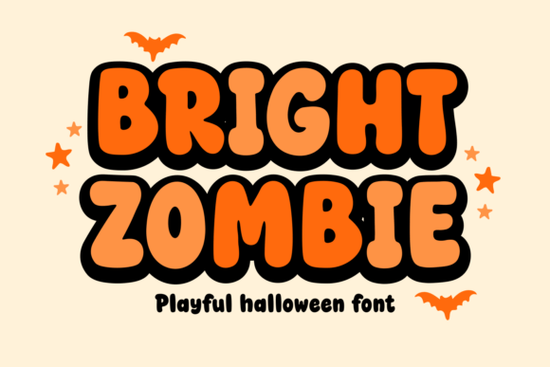
If you're working on Halloween-themed designs that lean more “fun” than “fright,” the Bright Zombie Font by Dreamink 7ntypes Font might be exactly what your project needs. This playful display font blends cheerful energy with just a hint of spooky charm think bouncy letterforms, rounded edges, and a cartoonish vibe that’s perfect for kids’ parties, seasonal crafts, or lighthearted promotional materials. It’s not trying to scare anyone; instead, it invites smiles while still celebrating the season.
Unlike darker, more gothic Halloween fonts, Bright Zombie keeps things upbeat. Its bold strokes and exaggerated curves make it highly legible even at smaller sizes, which is great if you’re designing trick-or-treat bags, printable party favors, or social media graphics. The font works especially well when you want your Halloween content to feel inclusive and family-friendly ideal for schools, community events, or small businesses running seasonal promotions.
What kinds of projects work best with Bright Zombie?
This font shines in contexts where whimsy matters more than horror. Here are a few natural fits:
- Kids’ Halloween books or activity sheets – The friendly shapes won’t intimidate young readers.
- Print-on-demand apparel – Think tees with phrases like “Boo-tiful” or “Zombie Squad” in cheerful colors.
- Party invitations and decorations – Pair it with pumpkins, ghosts, and candy corn for cohesive, joyful visuals.
- Social media posts for seasonal sales – Use it in Instagram stories or Facebook banners to announce limited-time offers with personality.
- Stickers and labels – Great for treat bags, classroom rewards, or DIY craft kits.
Because of its display nature, Bright Zombie isn’t meant for body text but that’s true of most themed fonts. Save it for headlines, logos, or short phrases where visual impact matters most.
How does it compare to other playful display fonts?
If you’ve used fonts like Merry Christmas Duo for holiday cheer or Super Touchdown for sports-themed energy, you’ll recognize the same spirit here: expressive, character-driven lettering designed to convey mood instantly. Bright Zombie sits comfortably alongside fonts like Chalky Teacher, which also leans into approachability and handcrafted warmth though Bright Zombie adds that extra seasonal twist.
For contrast, something like the Viking Font brings rugged, historical weight, while Bright Zombie is all about lightness and bounce. Knowing when to use which depends entirely on your audience and message. If your goal is “spooky but sweet,” this font delivers without overcomplicating things.
Tips for using Bright Zombie effectively
To get the most out of this font, keep a few practical considerations in mind:
- Pair it with simple sans-serifs. Let Bright Zombie be the star support it with clean, neutral fonts for any secondary text.
- Use color thoughtfully. Bright oranges, purples, greens, and even neon shades enhance its playful tone. Avoid muddy or overly dark palettes unless you’re deliberately toning down the cheer.
- Don’t overuse it. One or two words in Bright Zombie often have more impact than full paragraphs.
- Test readability at scale. While it’s clear in most contexts, very small sizes (like on tiny stickers) might blur some details.
With those steps, you’ll avoid common pitfalls and make the most of this lively, seasonal typeface whether you’re crafting for kids, customers, or just for fun.